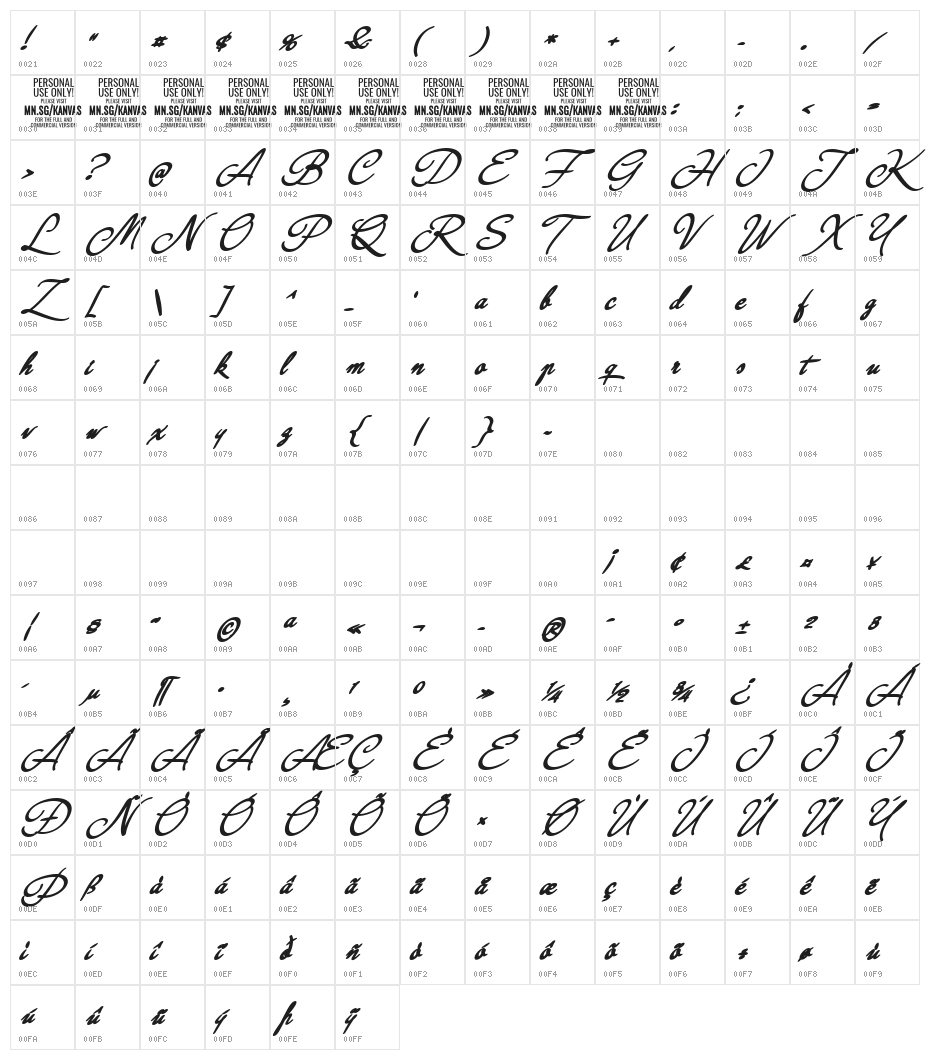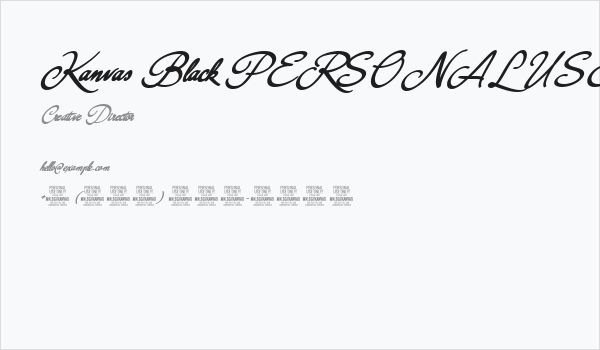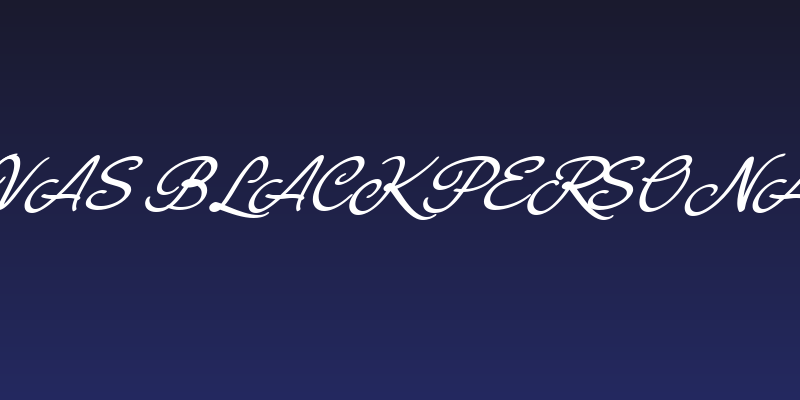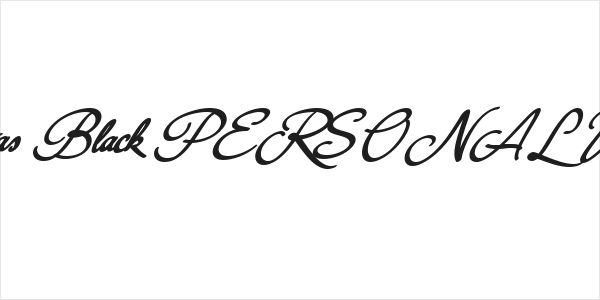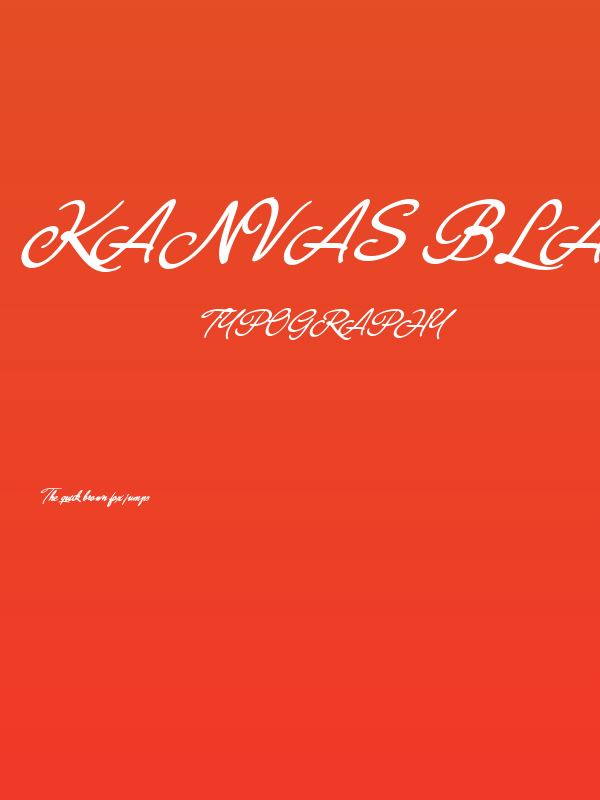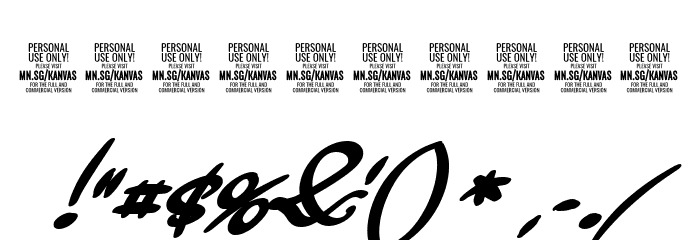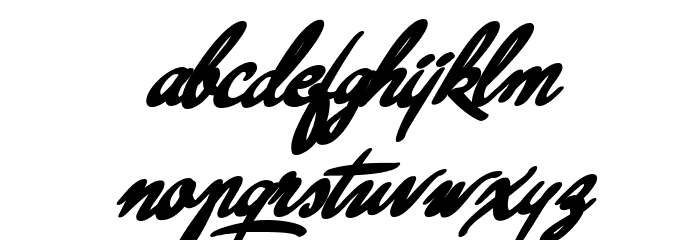
Kanvas Black PERSONAL USE Font
Kanvas Black PERSONAL USE Description
This font features a bold and expressive script style with a strong presence. The uppercase letters are elegantly connected, showcasing a fluid and dynamic flow, while the lowercase letters maintain a cohesive and artistic appearance. The characters are designed with a high contrast in stroke thickness, adding to the dramatic and eye-catching nature of the font. The special characters are crafted with the same attention to detail, ensuring consistency across the entire typeface. This font exudes a sense of creativity and flair, making it ideal for projects that require a touch of sophistication and style.
| Use Case | Logos, Invitations, Branding |
| Proposed Projects | Ideal for branding, invitations, logos, and creative design projects. |